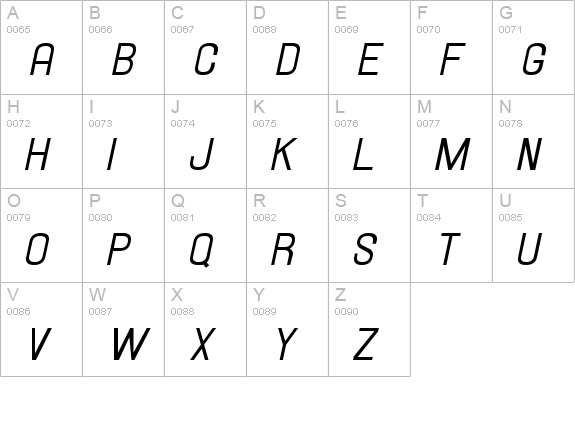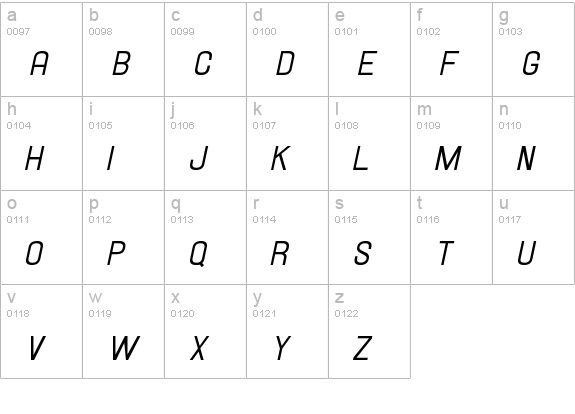
Hallandale Sm. Caps It. JL font is a stunning display font that exudes elegance and sophistication. With its small capital letterforms and graceful curves, this font is perfect for adding a touch of class to any design project. The unique design of Hallandale Sm. Caps It. JL font makes it stand out from the crowd. Its small capital letterforms are meticulously crafted, creating a harmonious balance between legibility and style. Whether you are designing a logo, a poster, or a headline, this font will make your text pop. What sets Hallandale Sm. Caps It. JL font apart is its versatility. It can be used in a variety of design styles, from modern and minimalistic to vintage and ornate. Its clean lines and delicate details make it a versatile choice for any project. But the best part? Hallandale Sm. Caps It. JL font is available for free! You can easily download it at FontsMarket.com, where you will find a wide selection of high-quality fonts. Whether you are a professional designer or a creative hobbyist, this font is a valuable addition to your font library. So why wait? Download Hallandale Sm. Caps It. JL font now and elevate your designs with its timeless beauty and effortless style.